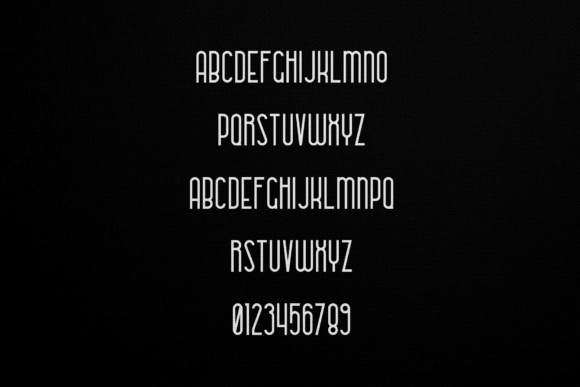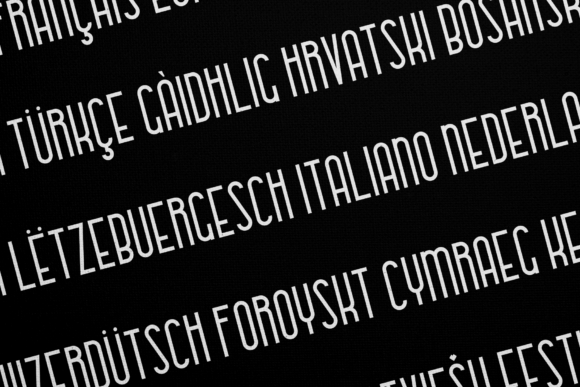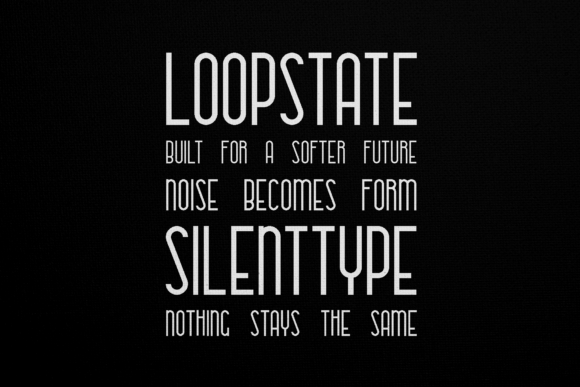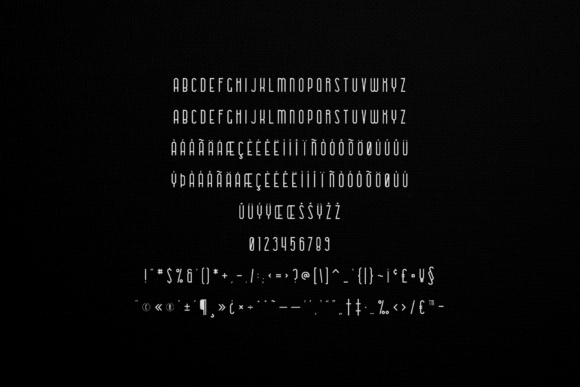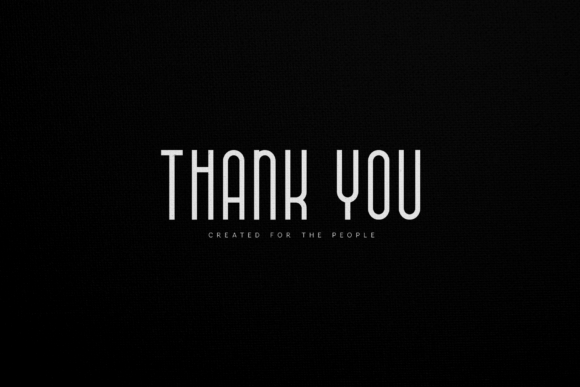
Introduction to Metria Street Font
Metria Street is a modern condensed display font designed with a clean, urban aesthetic and a strong vertical rhythm.
Metria Street carries a subtle architectural and street-inspired tone The condensed form makes it ideal for tight compositions, while the clean geometry keeps it versatile across different visual styles.
Key Features of Metria Street Font